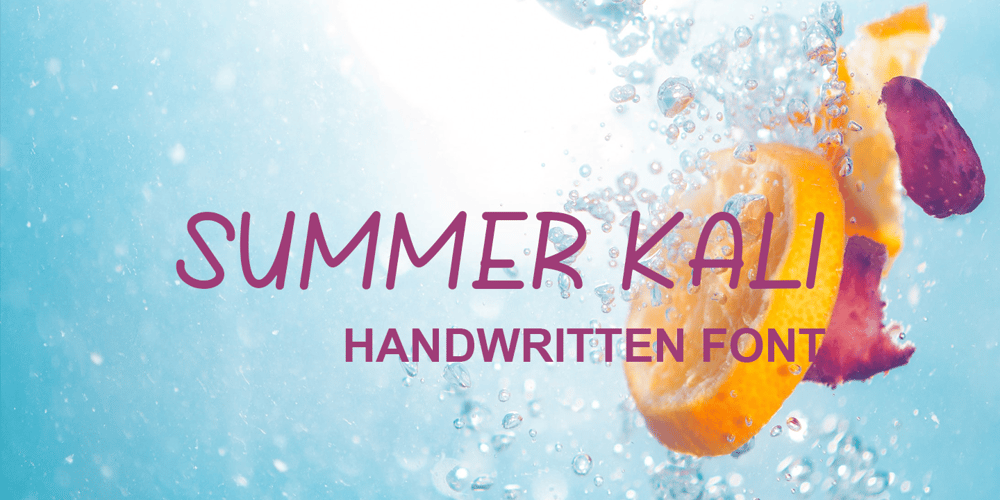
Summer Kali Font Family was designed by Afif Hidayat Alhabsi and published by Lafitte 58. Summer Kali contains 1 styles and family package options. Summer Kali is a cool and cute-looking display font. Add to each of your party invitation, swimming gathering or pretty much any design that requires a touch of youth and joy